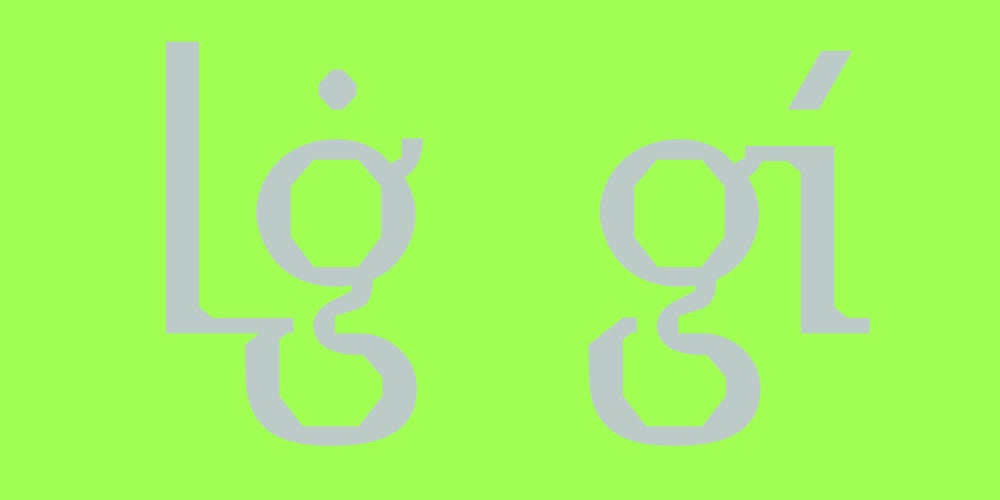
Suburban Collier
Suburban Collier font
Suburban Collier Font Family was designed by Paula Minelgaite and published by Paula Minelgaite. Suburban Collier contains 1 styles and family package options. Suburban Collier is a dreamy, humanist demi-serif sister of Romford Stencil typeface. It was created during the COVID-19 pandemic and its name is inspired by Collier Row, a suburban area of Romford, East London (UK). Suburban Collier features subtle ligatures, an alternative ‘a’ and supports Western, Central, Southern, and Eastern European as well as Pinyin. Use it to add character to your body copy or as fancy display text.